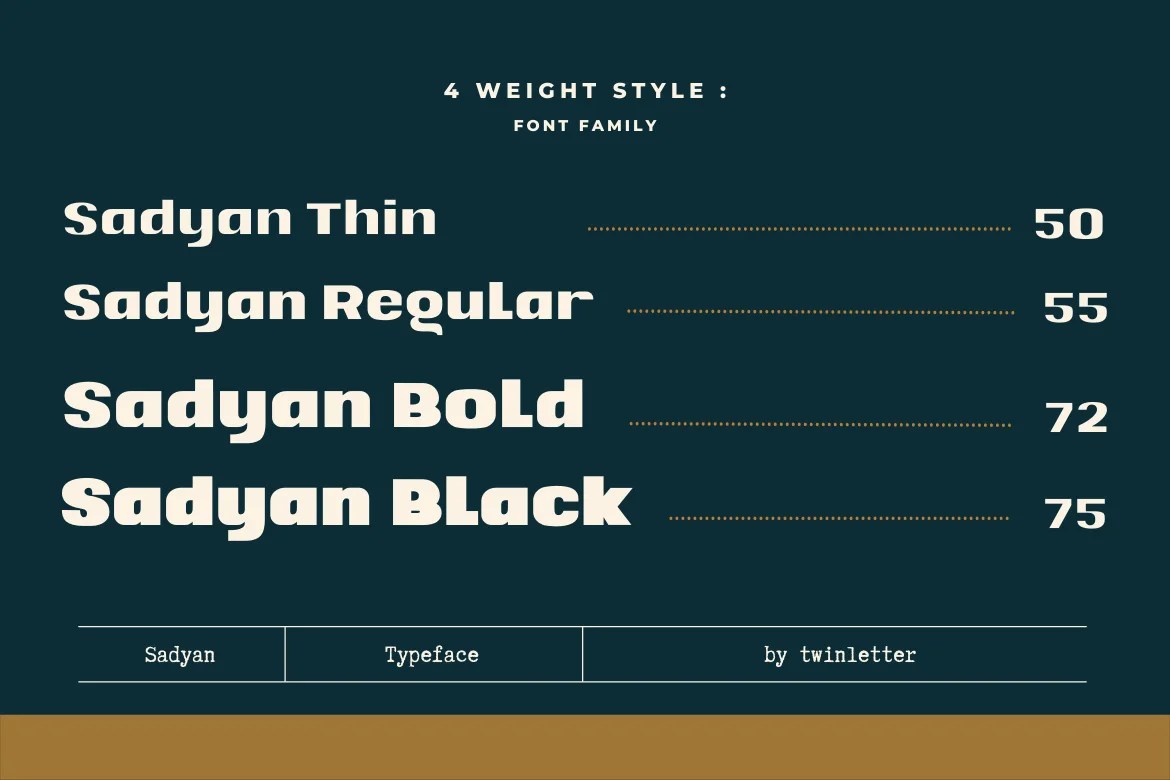
A genuine modern sans serif font family does more work than a single display font ever could — it gives a brand one consistent typeface that flexes from a bold headline down to fine print, without switching styles halfway through a project. Twinletter’s collection includes 39 examples of this modern sans serif font family, each built on the same structure: Thin, Regular, Bold, and Black weights in every set.
Sans serif fonts dominate modern branding because their clean strokes stay legible at nearly any size, from a business card to a billboard, and a family with multiple weights makes that flexibility even more useful — one typeface can carry a headline, a subheading, and body copy without the visual mismatch of pairing unrelated fonts together. As Monotype notes, how a brand applies the same typeface across different weights and contexts shapes the whole system, which is exactly what a genuine modern sans serif font family is built to support.
Rather than force artificial differences between 39 examples of this modern sans serif font family that share the same underlying structure, here’s what’s consistent across the entire set — and worth knowing before you pick one:
Since a modern sans serif font family in this collection is genuinely general-purpose, the practical way to choose is by letterform character rather than a stated use case — some lean more geometric and clean, others carry a bit more warmth or weight. Previewing your actual brand name or headline text in the type tester is the fastest way to see which one fits, and it’s worth checking all four weights against each other, since a family that looks great in Bold can sometimes feel thin or unbalanced once dropped down to Regular for body copy.
Each of these 39 fonts ships with the same four-weight structure described above:
Why doesn’t this roundup describe each font differently? The product descriptions for all 39 fonts are largely generic and don’t state a specific use case, so describing them with invented personalities would be misleading. All 39 genuinely share the same four-weight structure and general-purpose versatility.
What’s the practical benefit of a font family with four weights instead of just one style? One consistent typeface can cover a headline, a subheading, and body copy without needing to pair in a second, unrelated font — keeping a brand’s typography visually consistent across a whole project.